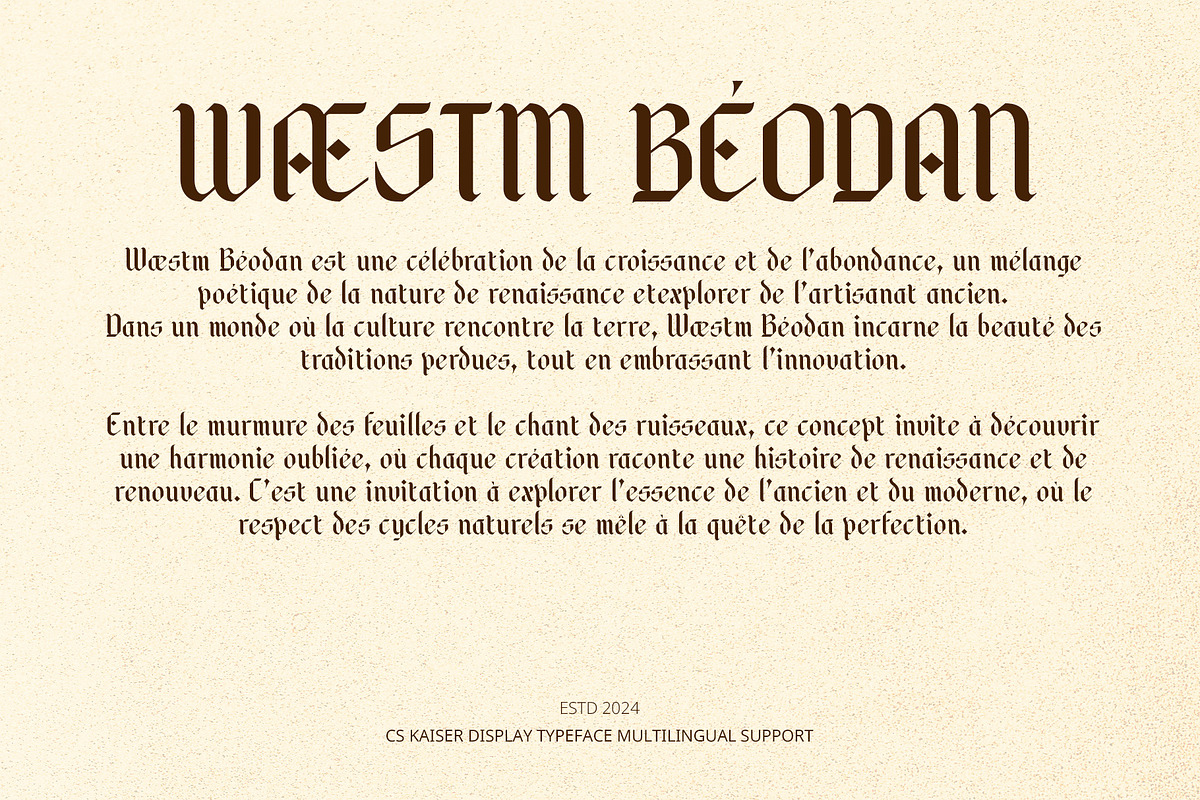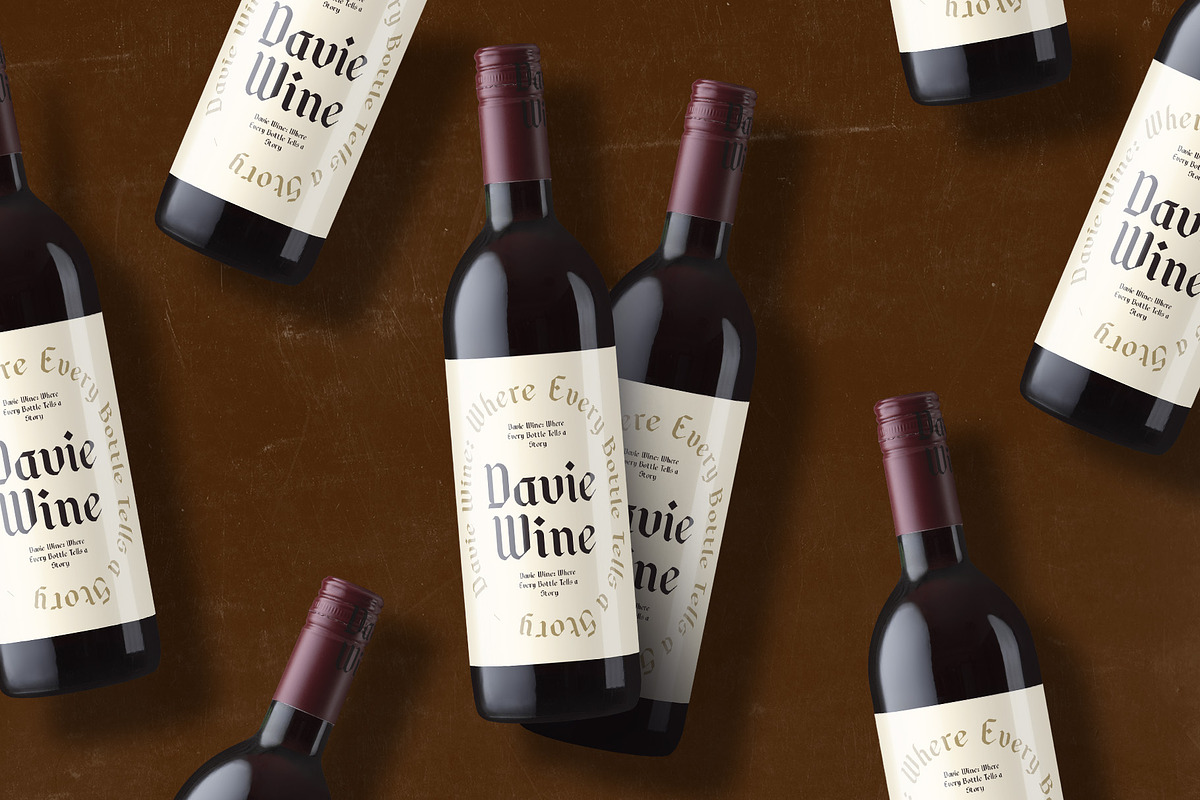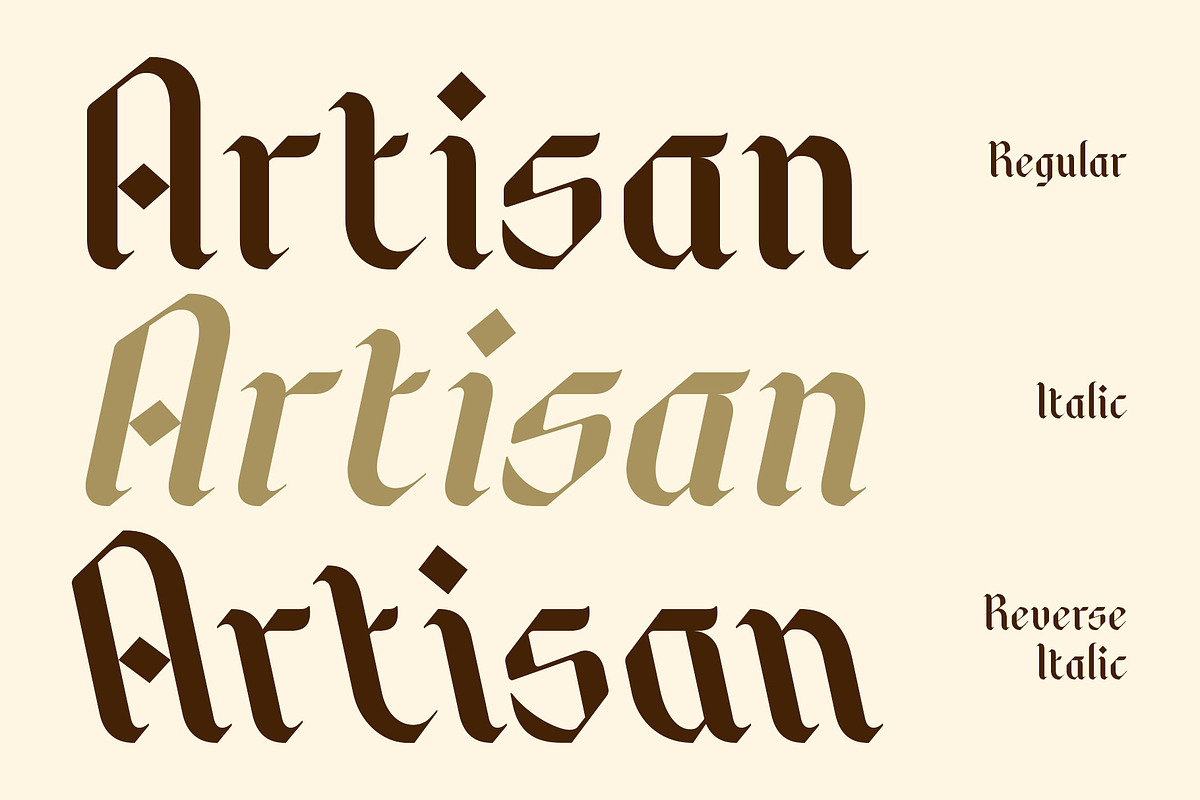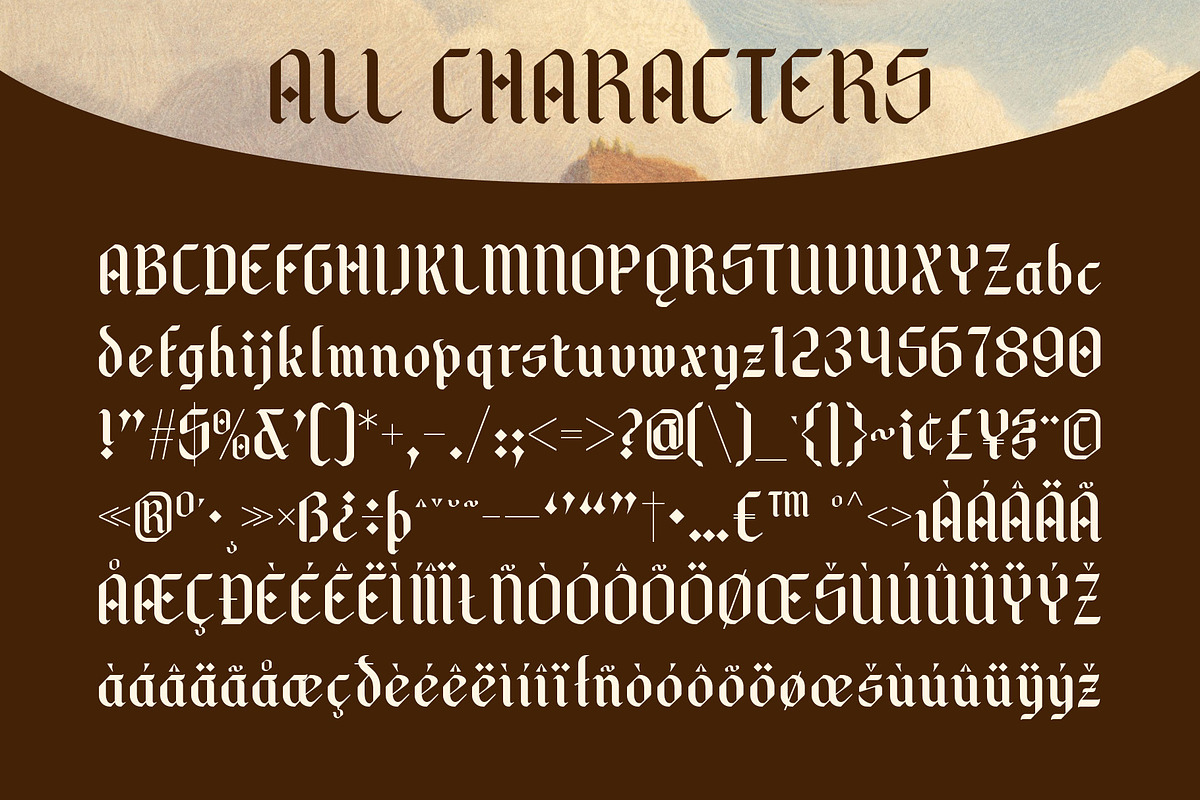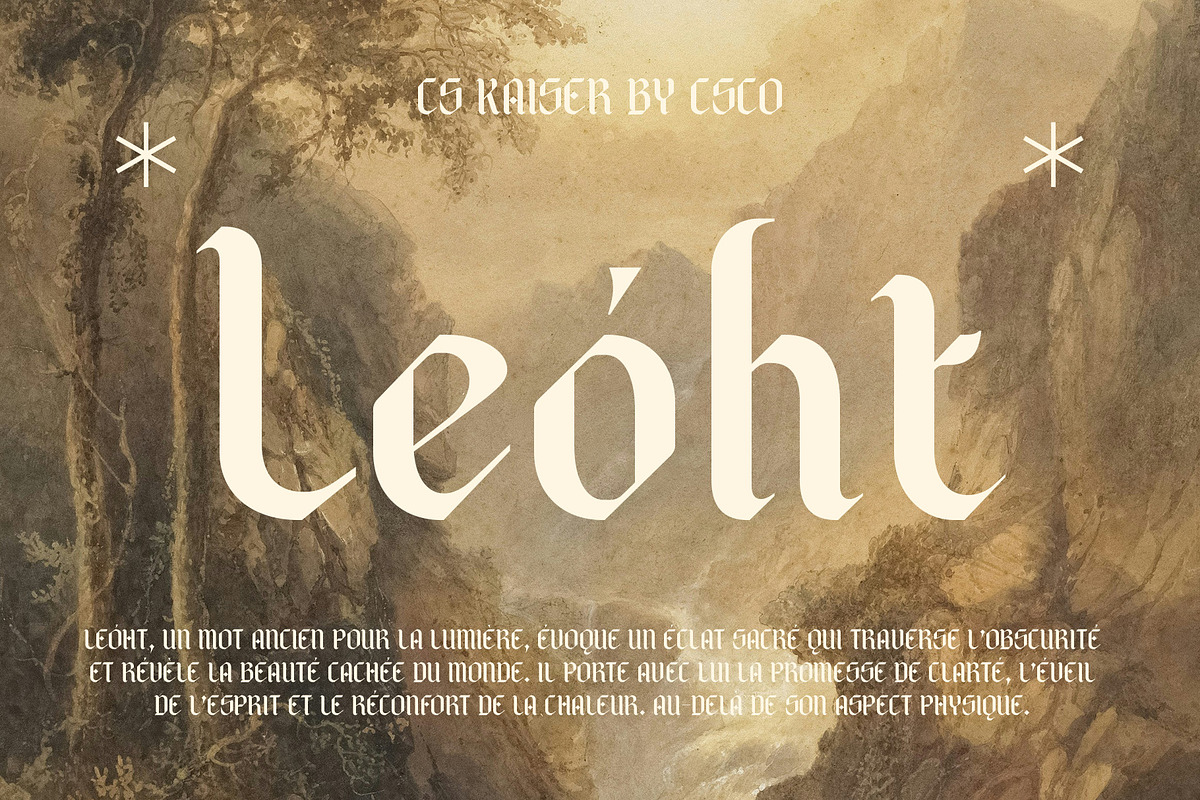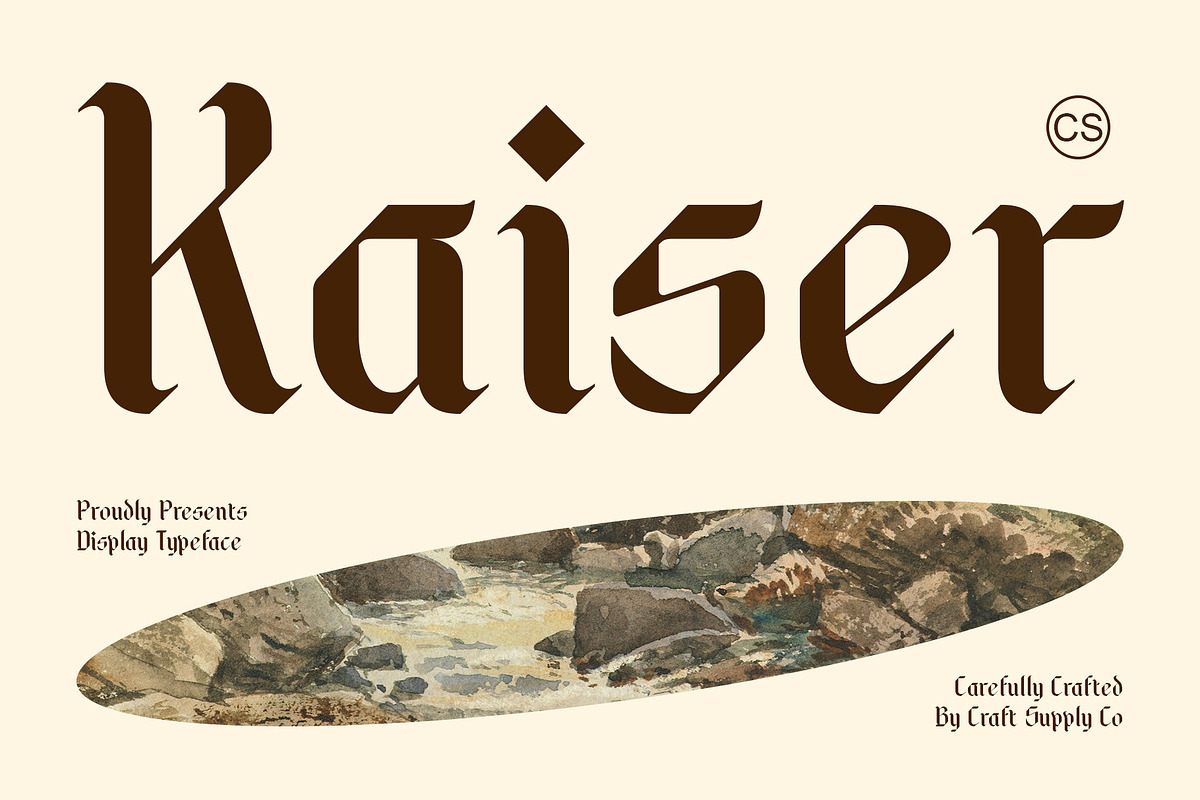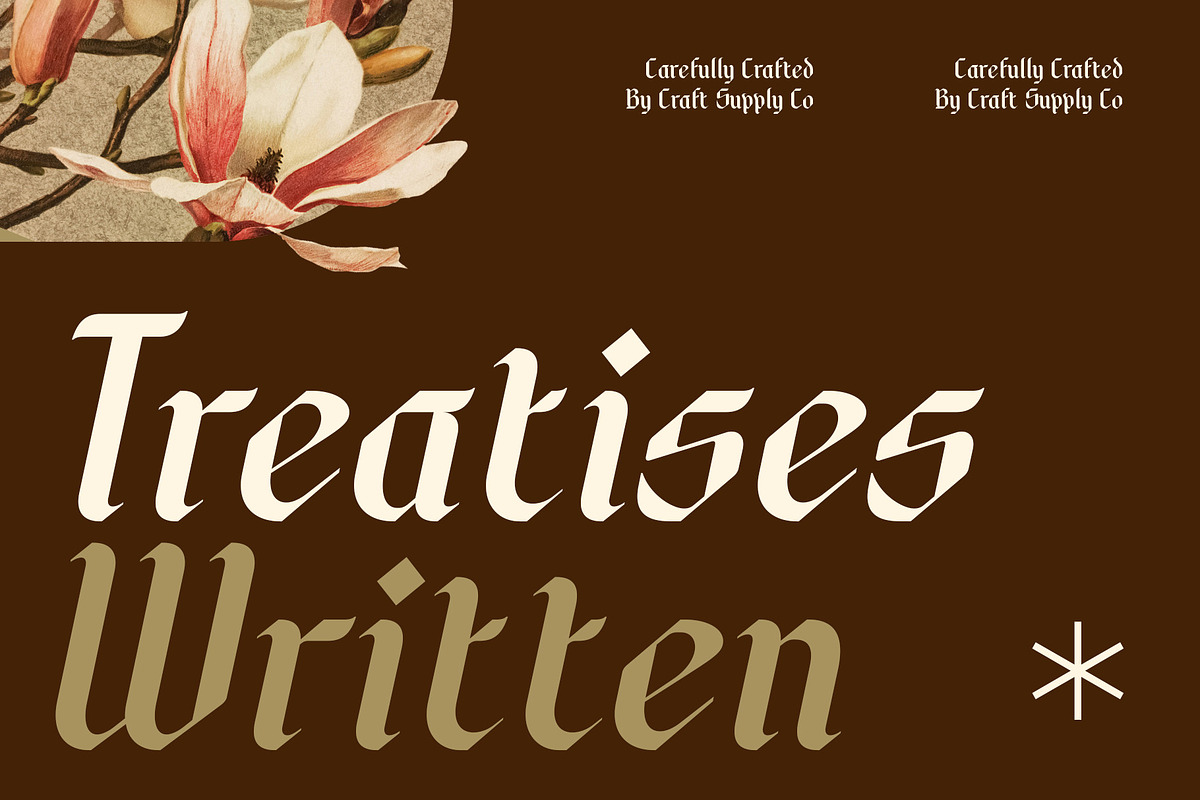
CS Kaiser – Gothic Font
CS Kaiser – Gothic Font: A Timeless Vintage Elegance
Classic Gothic Design with Ornate Detailing CS Kaiser is a Gothic display font that captures the essence of classic, vintage aesthetics. Drawing inspiration from medieval calligraphy, it features sharp, intricate lines and ornate serifs that evoke a sense of historical grandeur. The font’s detailed design makes it perfect for projects that aim to convey tradition, nostalgia, or cultural significance, bringing an old-world charm to modern design.
Bold and Structured for Impactful Presence The bold and structured design of CS Kaiser creates a striking visual presence, making it ideal for high-impact projects. Its detailed serifs and sharp edges lend an air of authority and elegance, while its intricate lines give it a sense of sophistication and vintage flair. This font works particularly well in larger sizes, where its ornate features can truly shine and make a statement.
Perfect for Nostalgic and Historical Designs CS Kaiser is the perfect choice for designs that aim to evoke a nostalgic or historically rich atmosphere. Its timeless aesthetic is ideal for vintage posters, theatrical posters, literary works, and logo designs that seek to convey a sense of legacy or tradition. Whether you’re designing for a classic event, a historical publication, or a brand with deep-rooted heritage, this font provides a fitting visual identity.
- CS Kaiser Regular
- CS Kaiser Italic
- CS Kaiser Reverse Italic